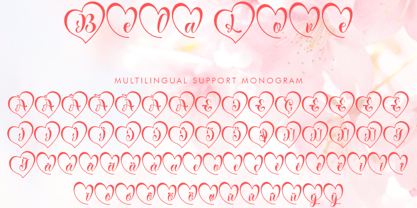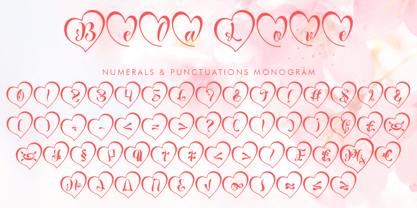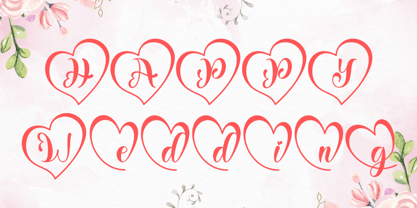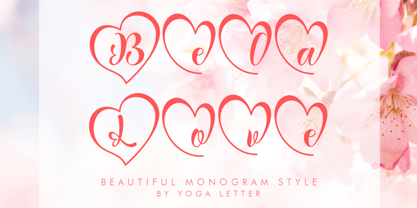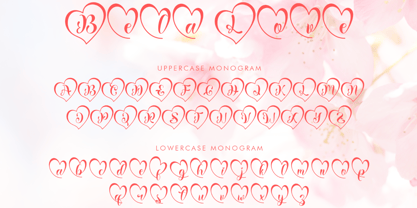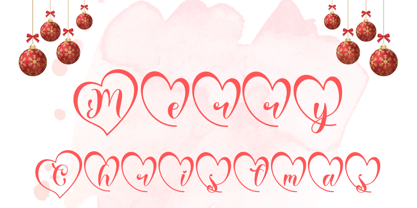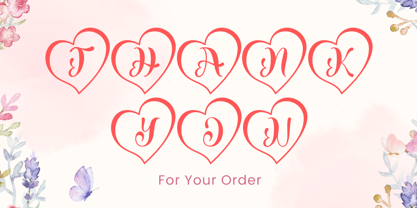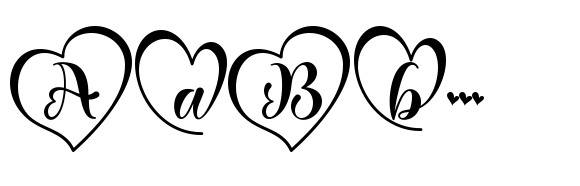
Bela Love
by Yoga Letter
The Bela Love Font Family was designed by Isroni Yoga Prasetya and published by Yoga Letter. Bela Love contains 1 styles. More about this family
"Bela Love" is a beautiful and cute monogram font with love shapes on each letter. It features uppercase and lowercase letters, numerals, punctuations, and multilingual support. It's perfect for Christmas greetings, wedding invitations, engagement invitations, logos, stickers, banners, posters, prints, branding, autumn, fall, Thanksgiving, Valentine's Day, and more.
Designers: Isroni Yoga Prasetya
Foundry: Yoga Letter